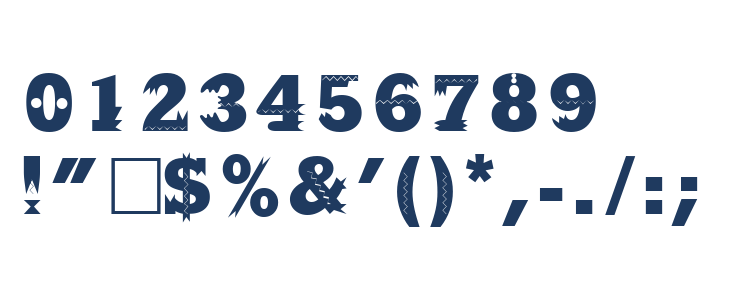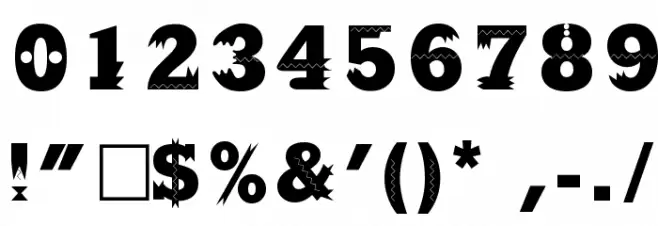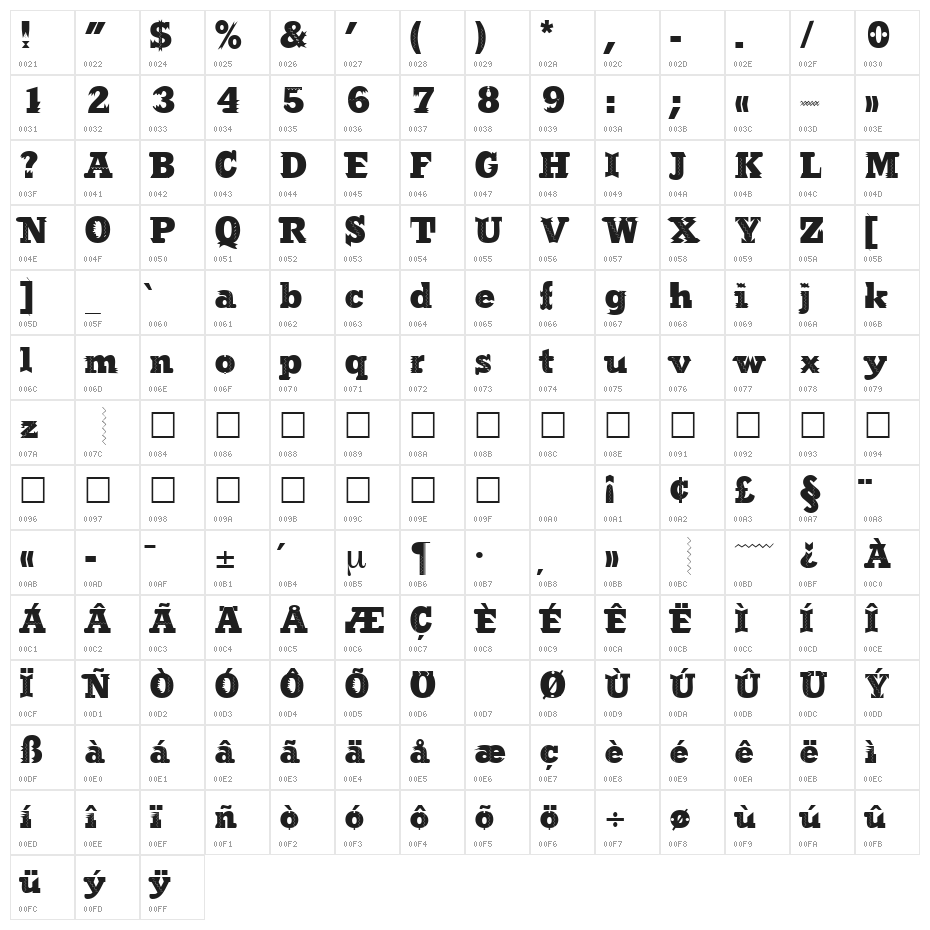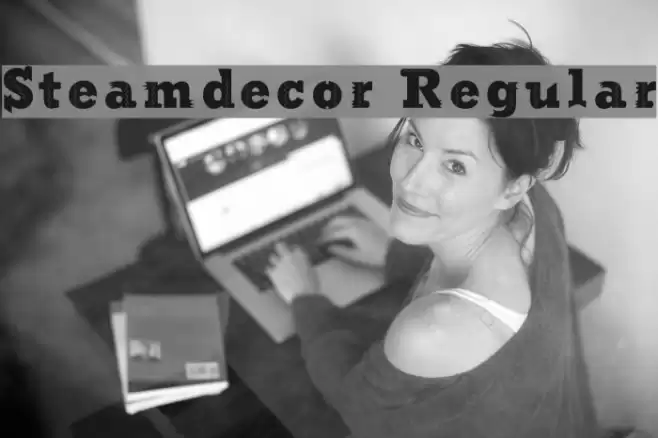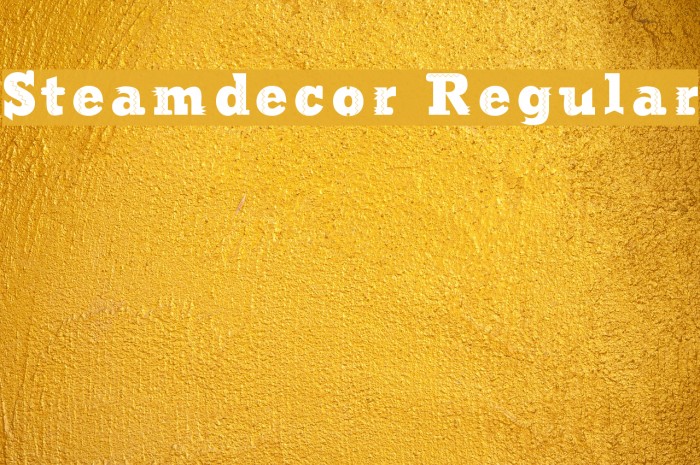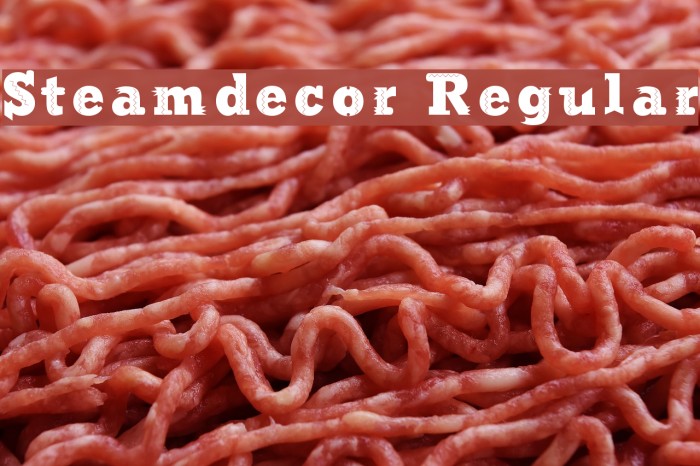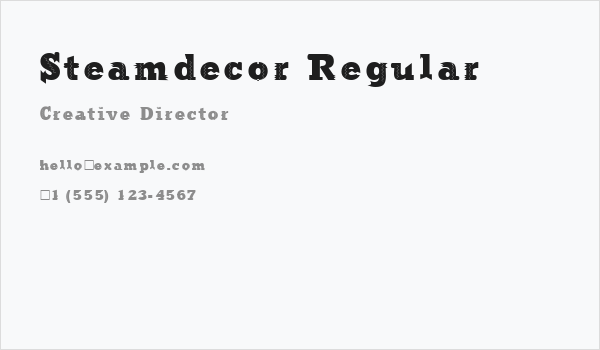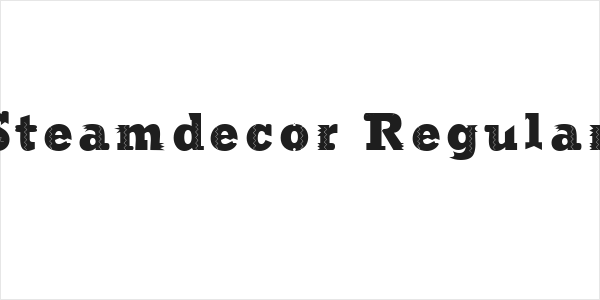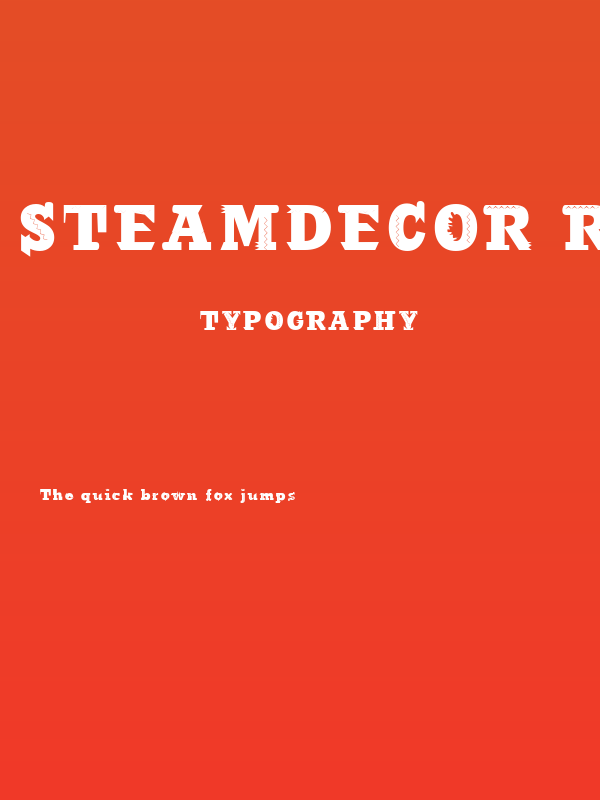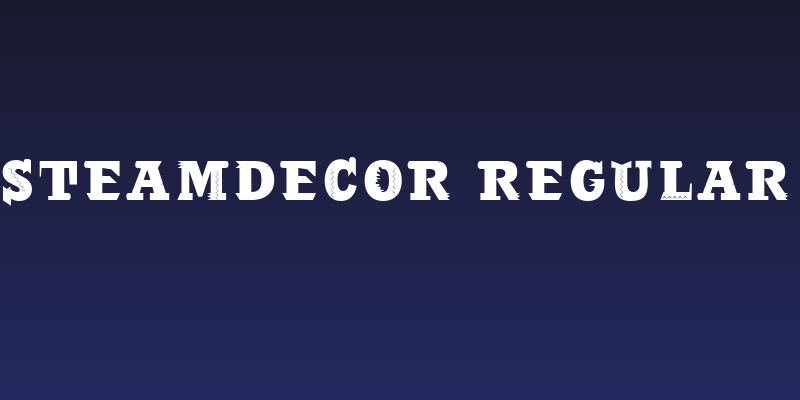
Steamdecor Regular Font
Steamdecor Regular Description
This font features a bold and decorative style with intricate patterns and cut-out shapes within each character. The uppercase and lowercase letters maintain a consistent design, with unique embellishments that give a sense of movement and flair. The numbers and special characters follow the same decorative theme, making them stand out with their bold presence. The font's overall appearance is eye-catching and artistic, suitable for projects that require a strong visual impact.